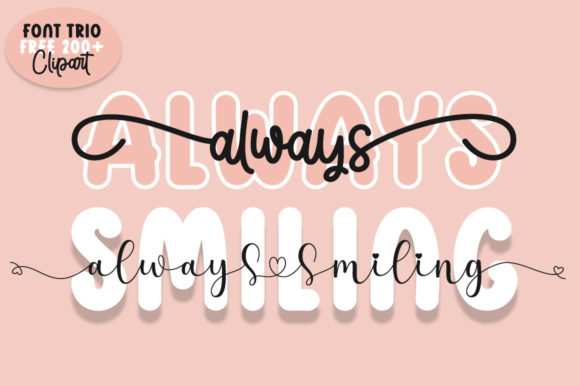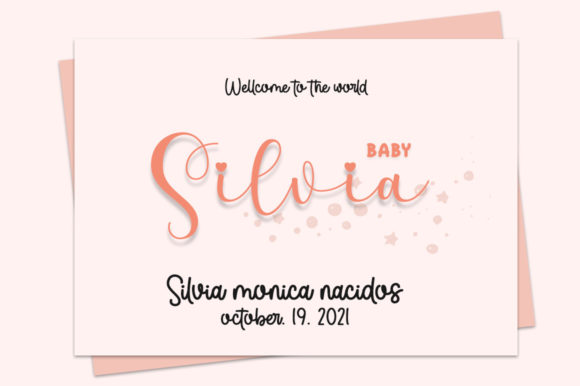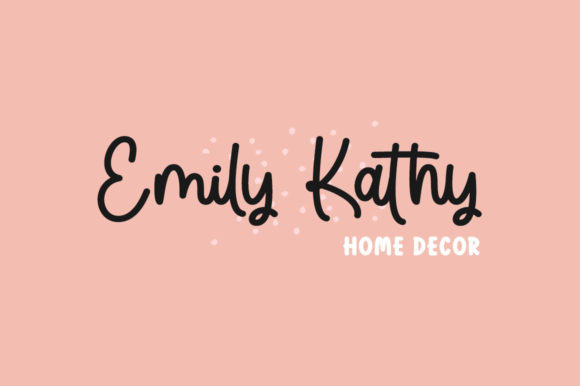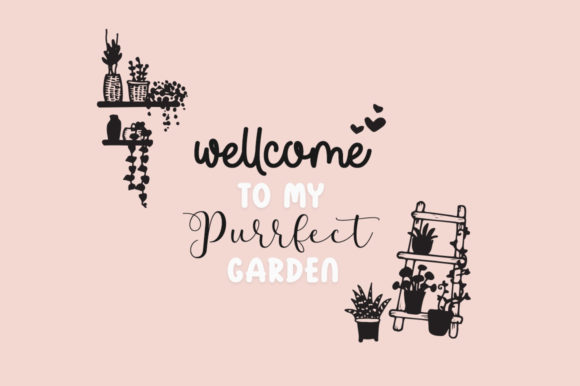
Always Smiling Font
About the Always Smiling Font
Step up your design game with Always Smiling Font, a font that exudes confidence and style. Always Smiling consists of trio fonts designed to complement each other perfectly. Together or apart, these fonts are ideal for adding a chic and cheery touch to your crafts. This font is PUA encoded which means you can access all glyphs and swashes with ease!
Its playful, rounded forms make Always Smiling ideal for headlines, short text blocks on packaging, and social media graphics. It adds a friendly, approachable feel to branding for children’s products, cafes, or lifestyle brands. However, its less-than-optimal x-height makes it unsuitable for body text or lengthy paragraphs. Avoid using it in UI contexts requiring high readability.
Pairing Always Smiling with a clean sans-serif like Open Sans for body text creates a strong contrast and enhances readability. For a more sophisticated look, consider pairing it with a classic serif like Garamond or a slightly more geometric sans-serif such as Montserrat.
The overall personality is undeniably cheerful and approachable, though its decorative elements maintain a level of stylish sophistication, preventing it from appearing childish or overly simplistic.
Always Smiling Font Usage Examples
Always Smiling Font Example